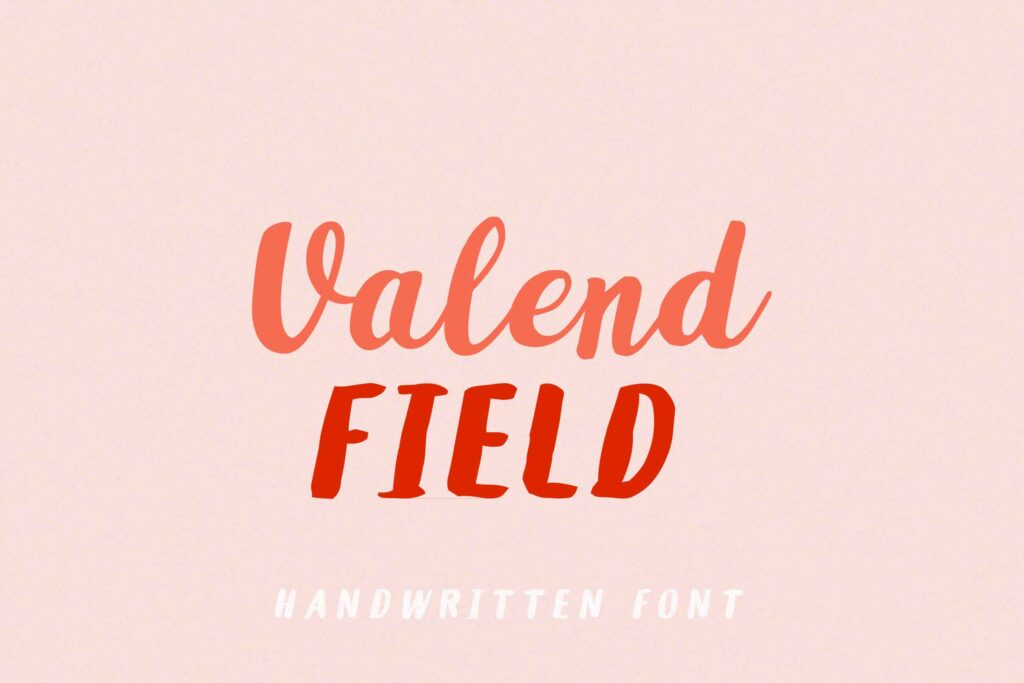
Valend Field Script Font is a sweet and paint brushed handwritten font. It looks stunning on wedding invitations, thank you cards, quotes, greeting cards, logos, business cards and every other design which needs a customized touch.